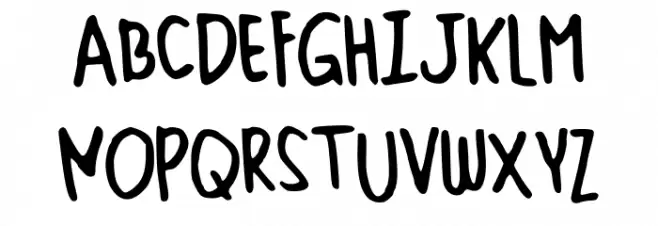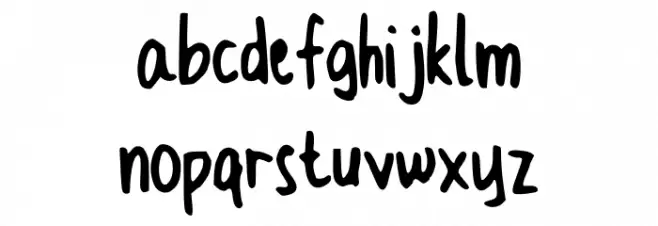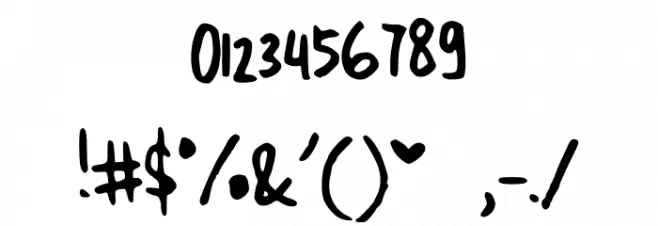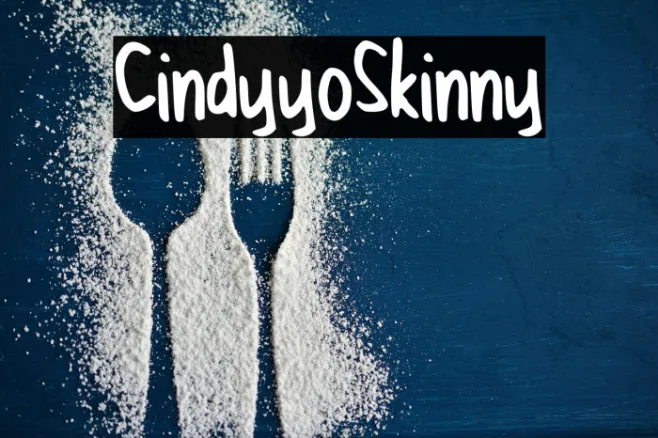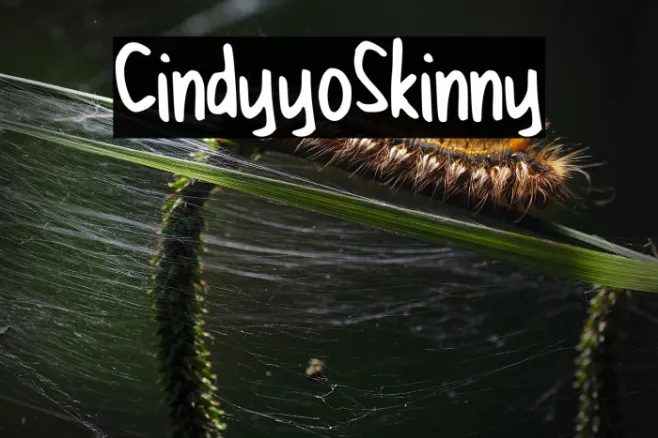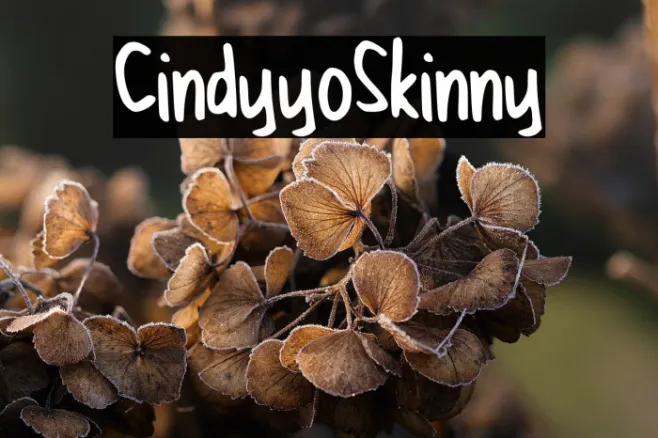
CindyyoSkinny Font
CindyyoSkinny Description
A playful, handwritten font with a casual and informal style, featuring rounded edges and a slightly irregular baseline.
Playful handwritten font with rounded edges.
- Proposed Projects: Greeting cards, children's books, casual invitations.
- Category: Handwritten
- Overall Style: Casual
- Use Case: Headlines, Informal text, Creative projects.